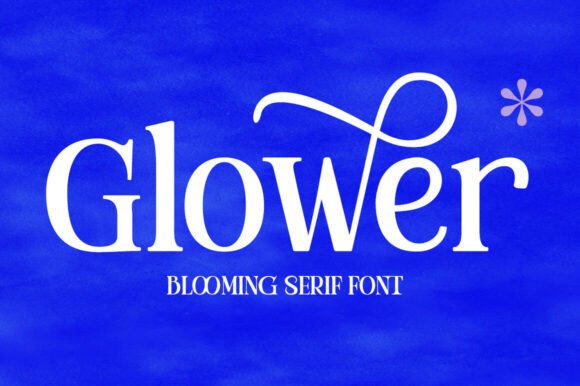
Glower Font: A Versatile Serif Font for Modern Designs
When it comes to typography, the right font can make all the difference in the success of a design project. A font that is both visually appealing and highly legible can elevate the overall aesthetic of a piece, while also ensuring that the message is conveyed clearly. This is where the Glower font comes in – a serif font that offers a unique blend of geometric and traditional designs, making it an excellent choice for a wide range of applications.
Key Features of Glower Font
- Serif Font with Alternate Styles: Glower is a serif font that boasts a varied set of alternate styles, offering users a range of options to suit their design needs.
- Geometric and Traditional Design Blend: The font combines geometric and traditional designs, resulting in a unique and versatile aesthetic.
- Upright and Italic Character Types: Glower offers both upright and italic character types, making it suitable for use in a variety of contexts, from large headings to body text.
- Open Type Styles: The font features a series of open type styles that allow users to access alternate glyphs, further expanding its expressive potential.
Design Uses for Glower Font
Glower’s versatility makes it an excellent choice for a wide range of design applications. Here are just a few examples:
- Headings and Titles: The font’s strong, geometric design makes it perfect for use in headings and titles, where a bold and eye-catching aesthetic is desired.
- Body Text: Glower’s clear and legible design also makes it suitable for use in body text, where readability is essential.
- Branding and Identity: The font’s unique blend of geometric and traditional designs makes it an excellent choice for branding and identity projects, where a distinctive aesthetic is desired.
- Packaging and Advertising: Glower’s versatility and expressiveness make it well-suited for use in packaging and advertising, where a bold and attention-grabbing aesthetic is often required.
Typography Tips for Using Glower Font
To get the most out of Glower font, here are a few typography tips to keep in mind:
- Experiment with Alternate Styles: Don’t be afraid to experiment with Glower’s alternate styles to find the one that works best for your design.
- Use Open Type Styles: Take advantage of Glower’s open type styles to access alternate glyphs and add an extra layer of creativity to your design.
- Pay Attention to Line Height and Spacing: As with any font, make sure to pay attention to line height and spacing to ensure optimal readability.
- Balance Bold and Regular Weights: Balance bold and regular weights to create visual interest and hierarchy in your design.
A Brief History of Glower Font
While the origins of Glower font are not well-documented, it is clear that the font was designed with versatility and expressiveness in mind. The font’s unique blend of geometric and traditional designs suggests a desire to create a font that would be both modern and timeless.
The Benefits of Using Glower Font
- Versatility: Glower’s varied set of alternate styles and open type styles make it an extremely versatile font that can be used in a wide range of applications.
- Legibility: The font’s clear and geometric design make it highly legible, even at small sizes.
- Expressiveness: Glower’s unique blend of geometric and traditional designs gives it a distinctive aesthetic that can add an extra layer of creativity to any design project.
- Timelessness: The font’s classic design elements ensure that it will remain a timeless choice for years to come.
In conclusion, Glower font is a versatile and highly legible serif font that offers a unique blend of geometric and traditional designs. Its varied set of alternate styles, open type styles, and clear design make it an excellent choice for a wide range of design applications, from headings and titles to body text and branding. Whether you’re a seasoned designer or just starting out, Glower font is definitely worth considering for your next project.